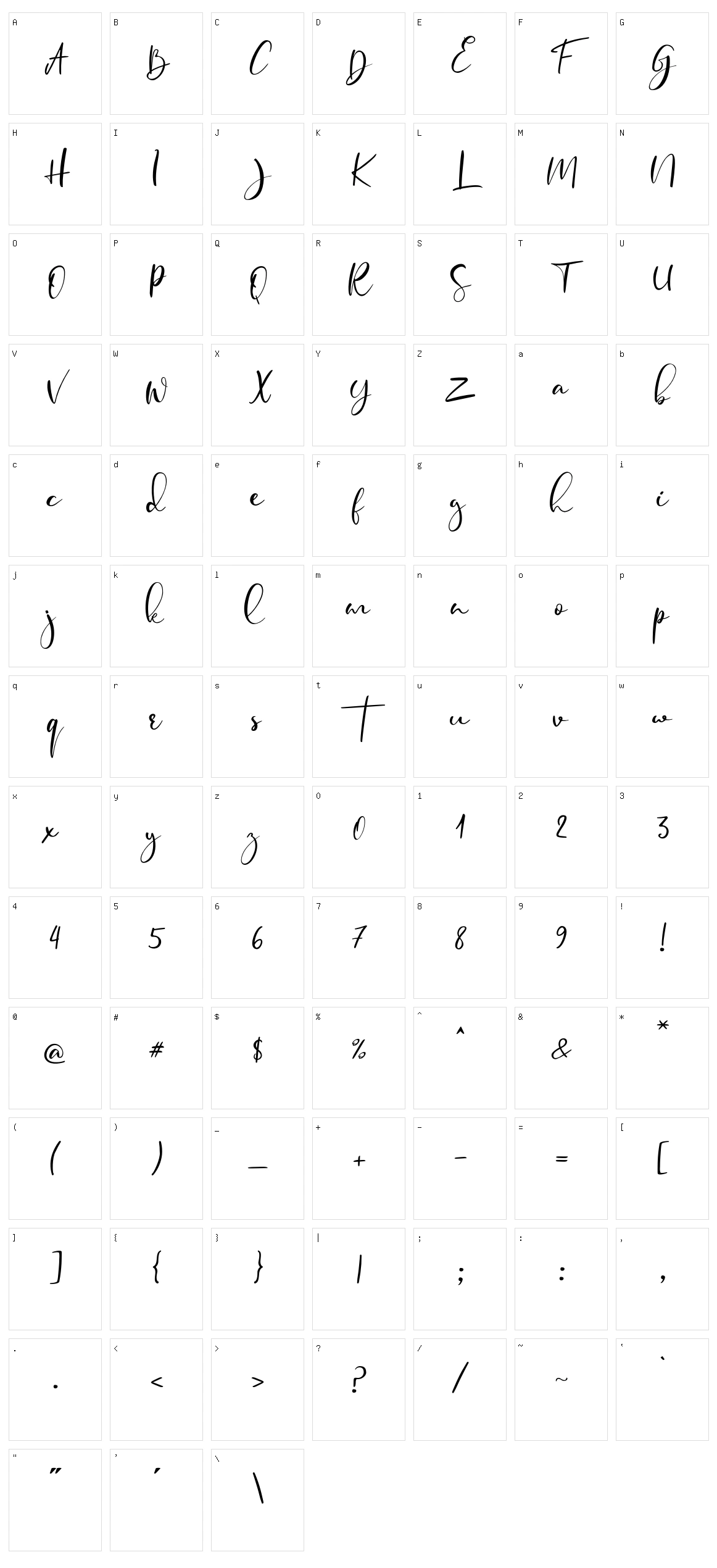
The free font Fansthome is carefully designed by Qaratype, showcasing a thoughtful balance of creativity and usability and falls under the Script font style. When you download the ZIP file, it contains only 16.86 KB of font files, making it lightweight and quick to download. Please review the license details below to understand permitted usage and distribution rights. If license information is not available, we recommend using this font for personal projects only or contacting the author directly for commercial usage permissions.